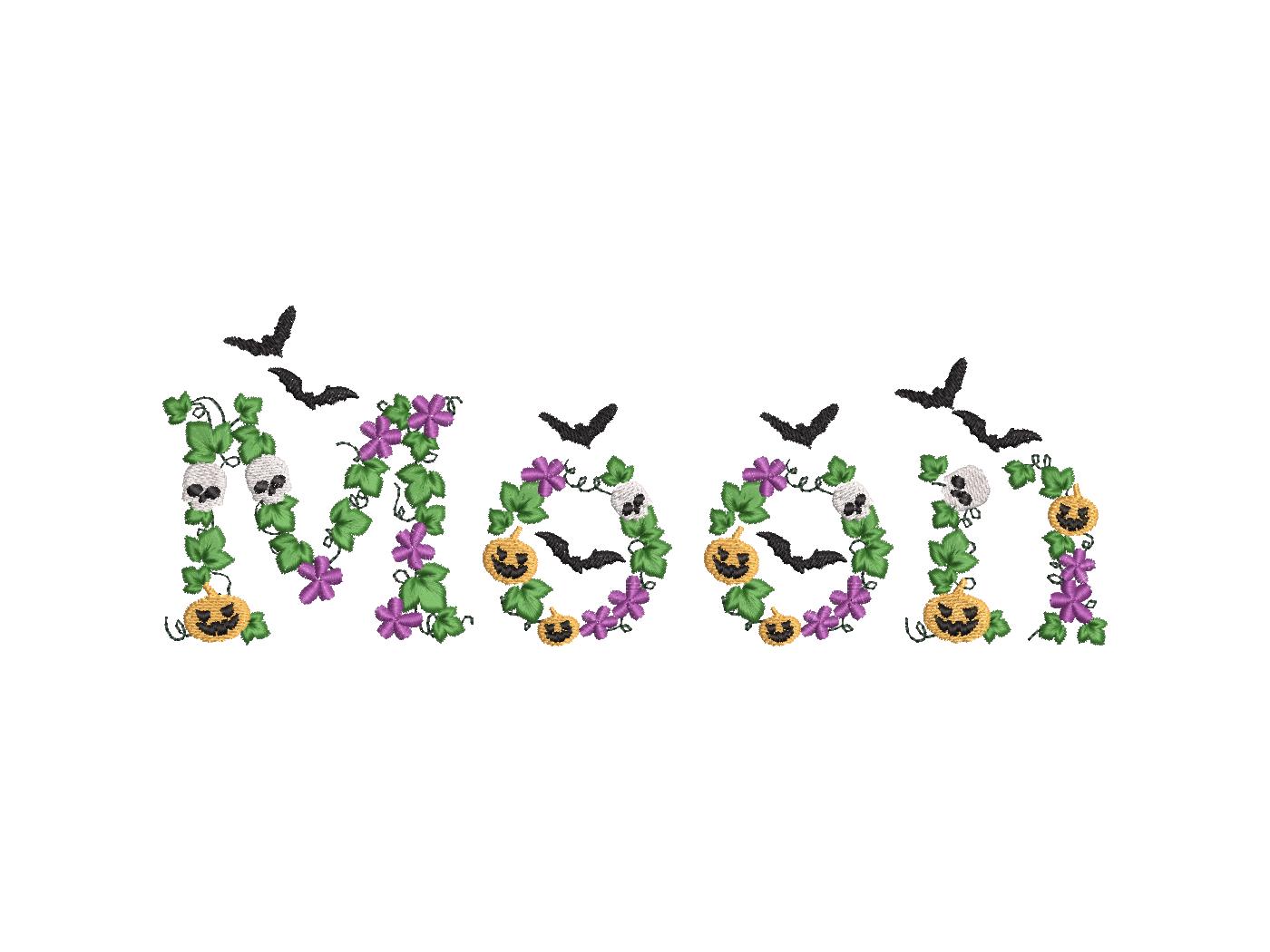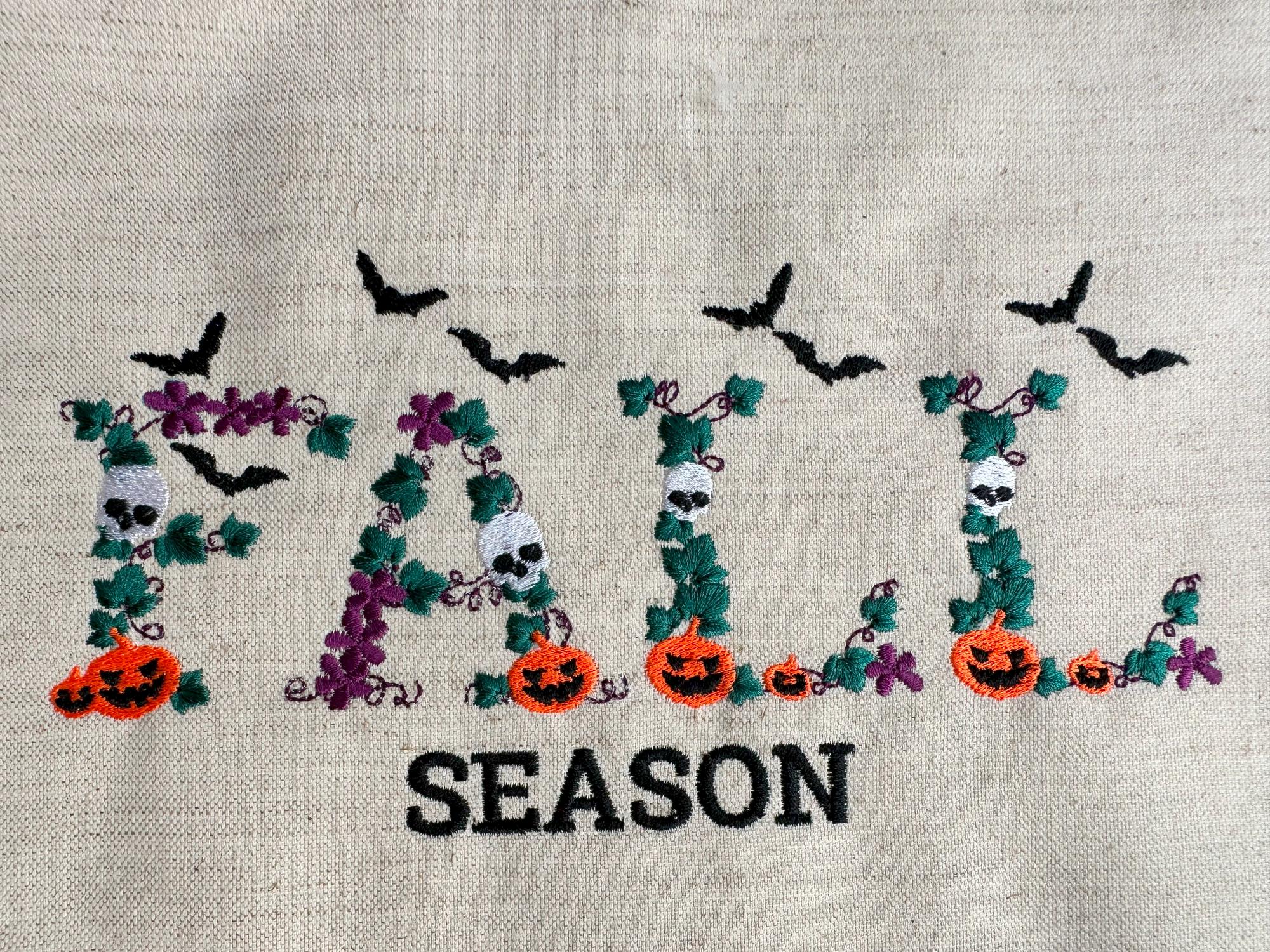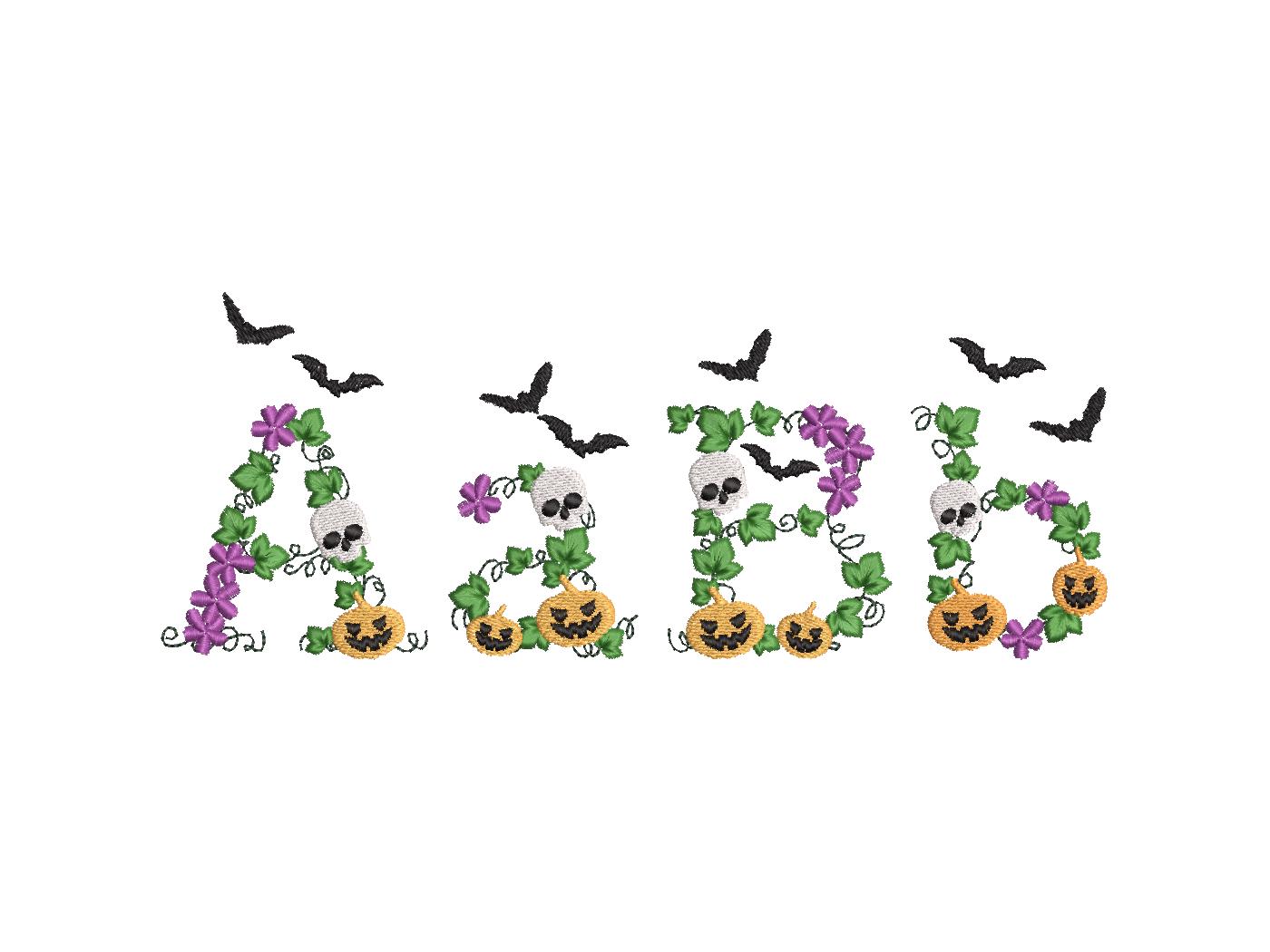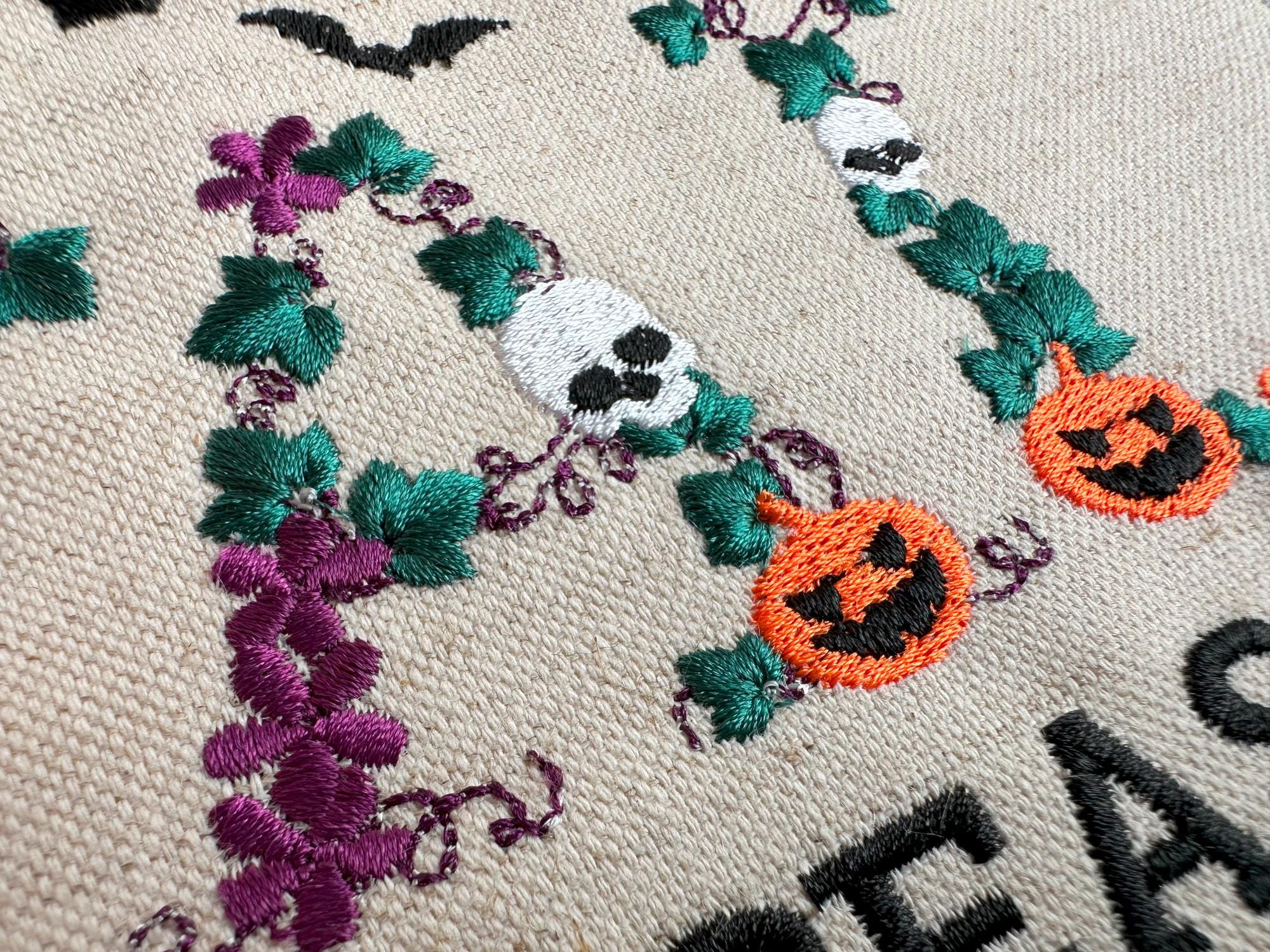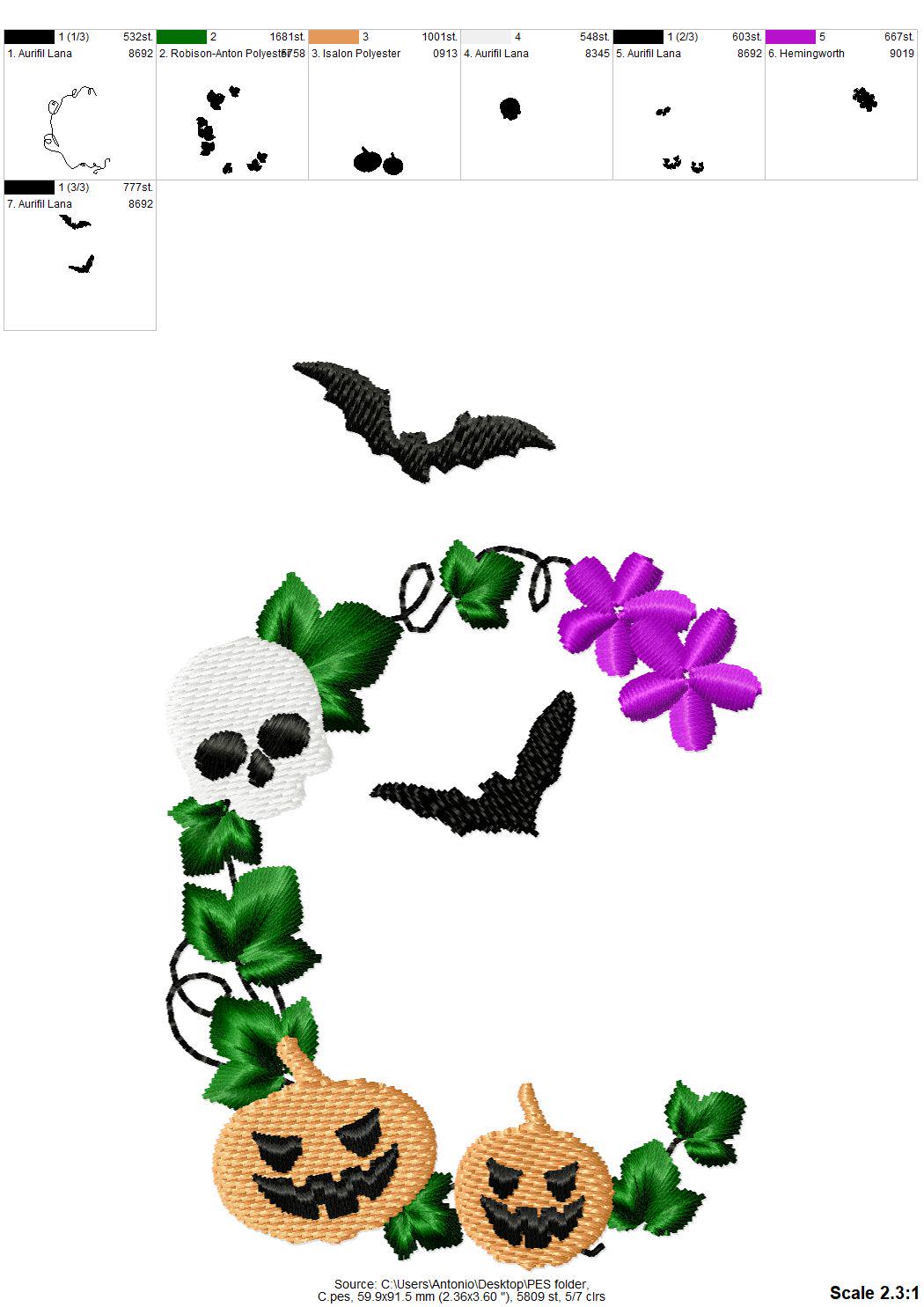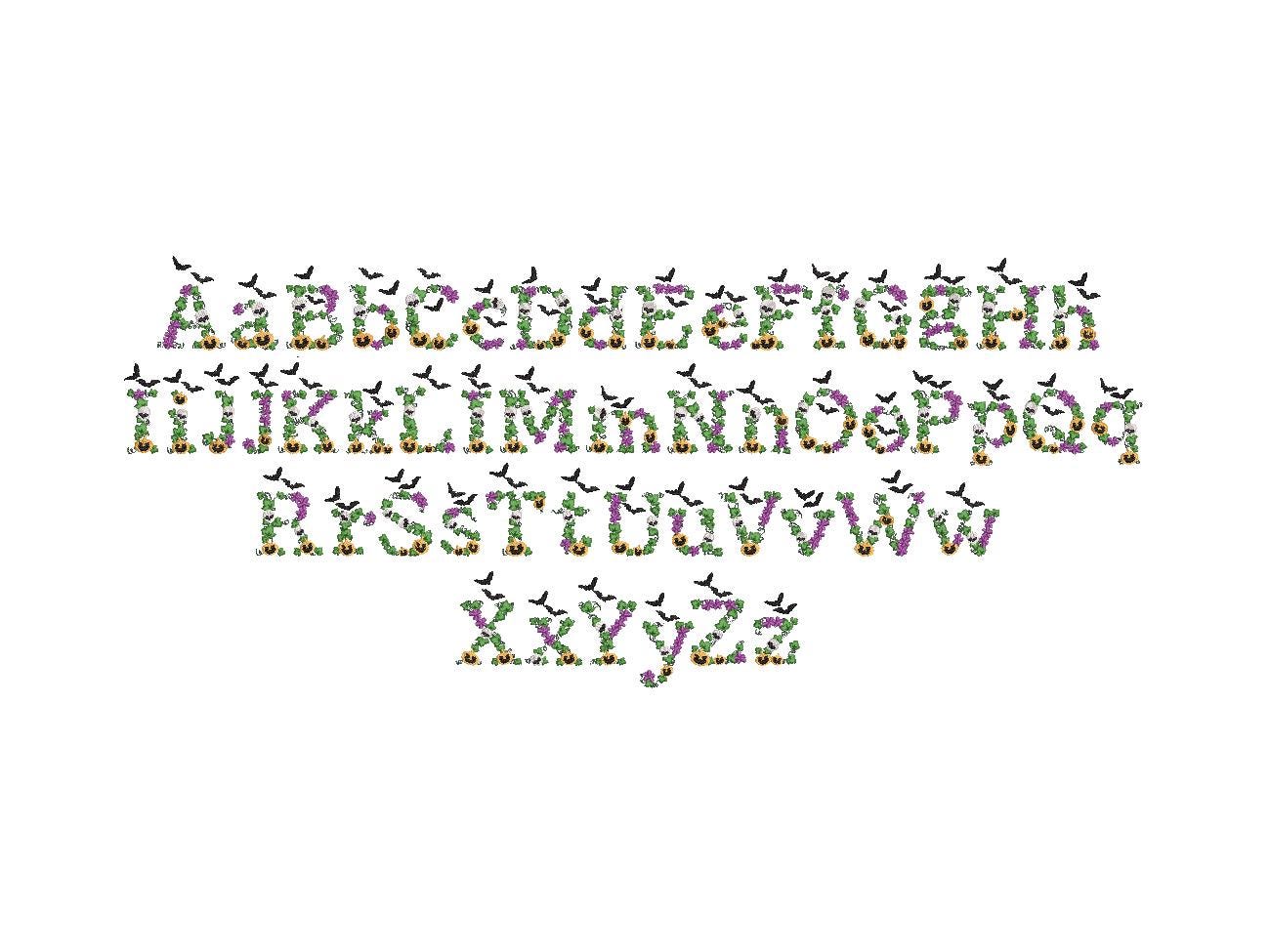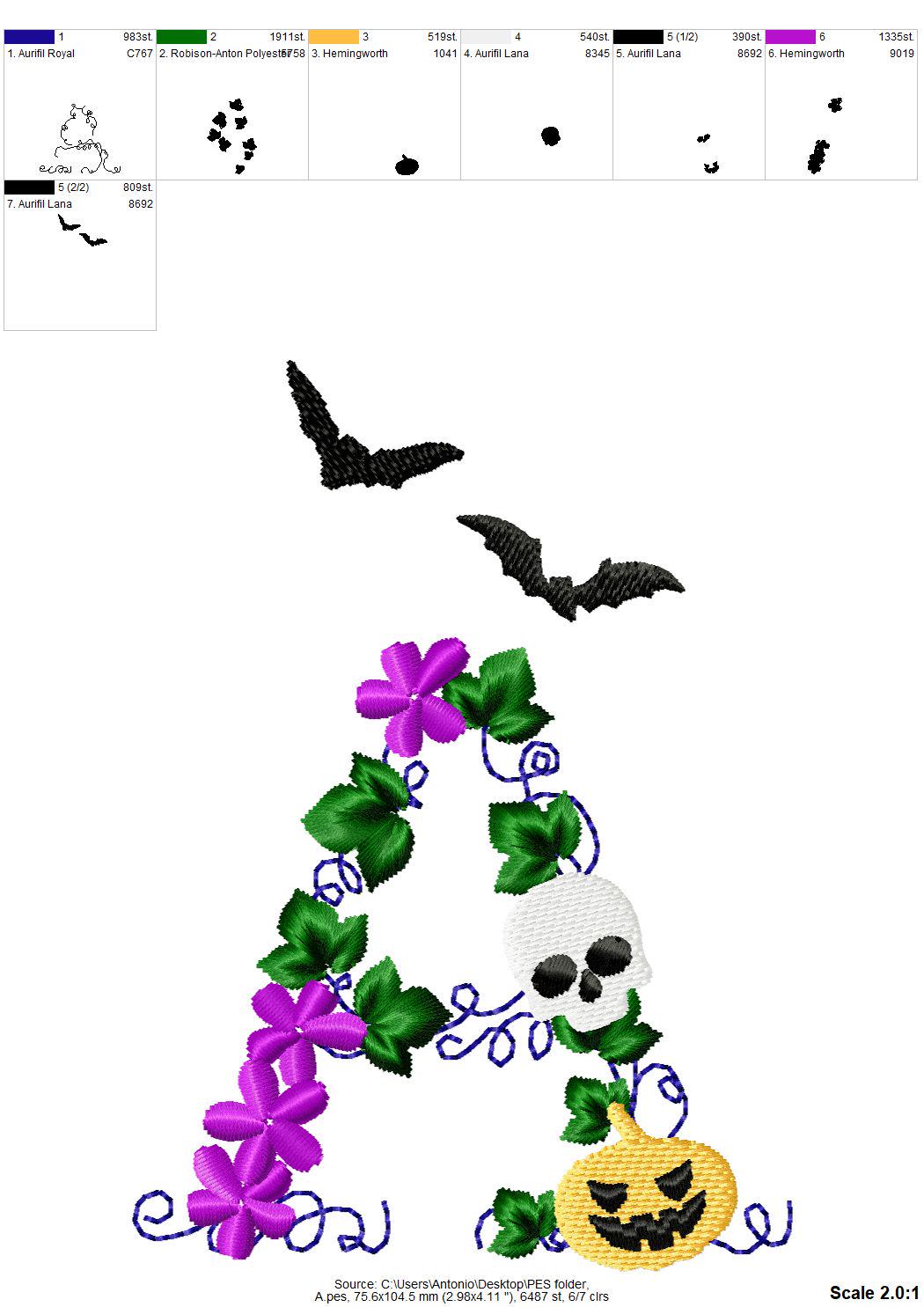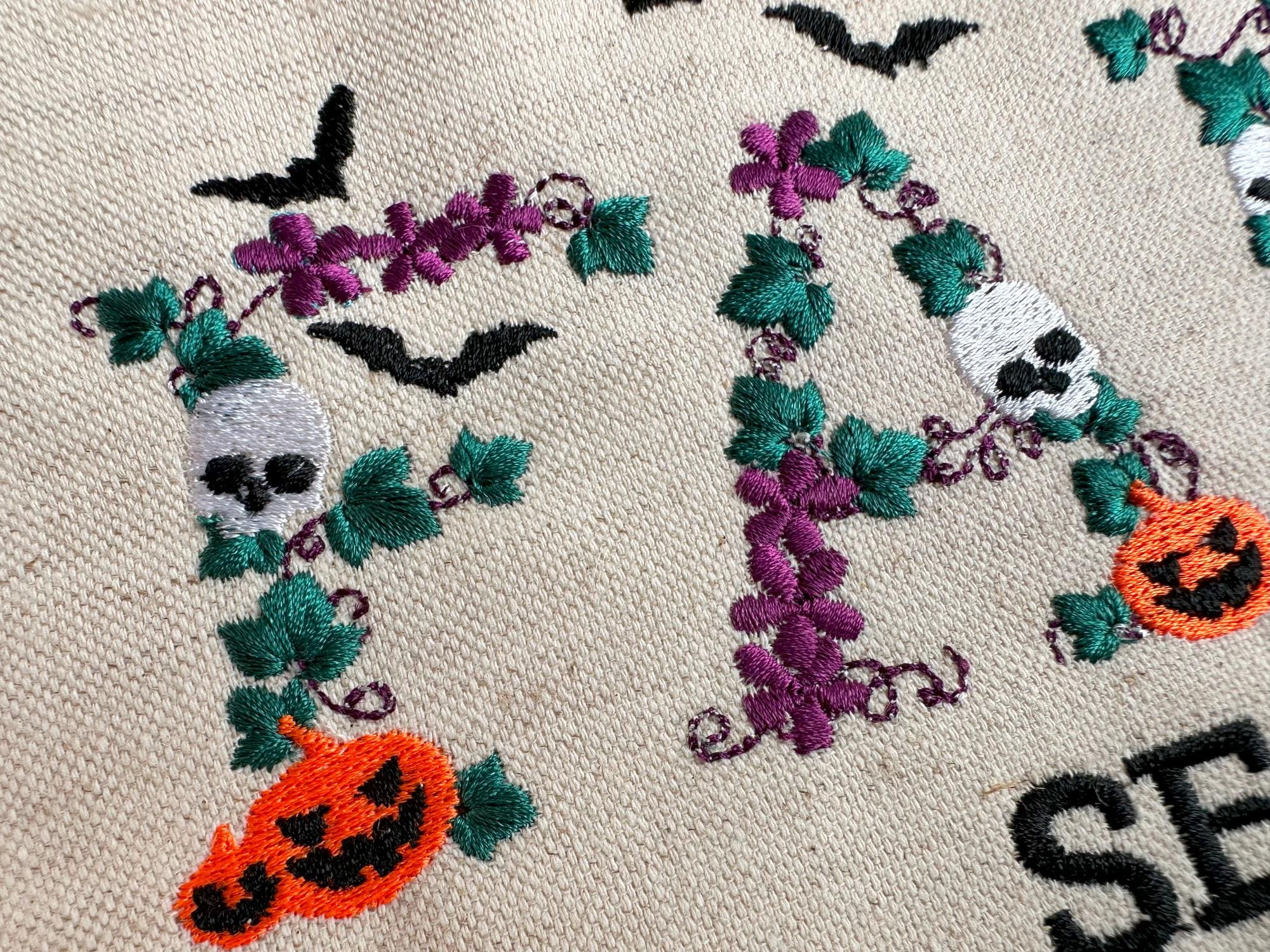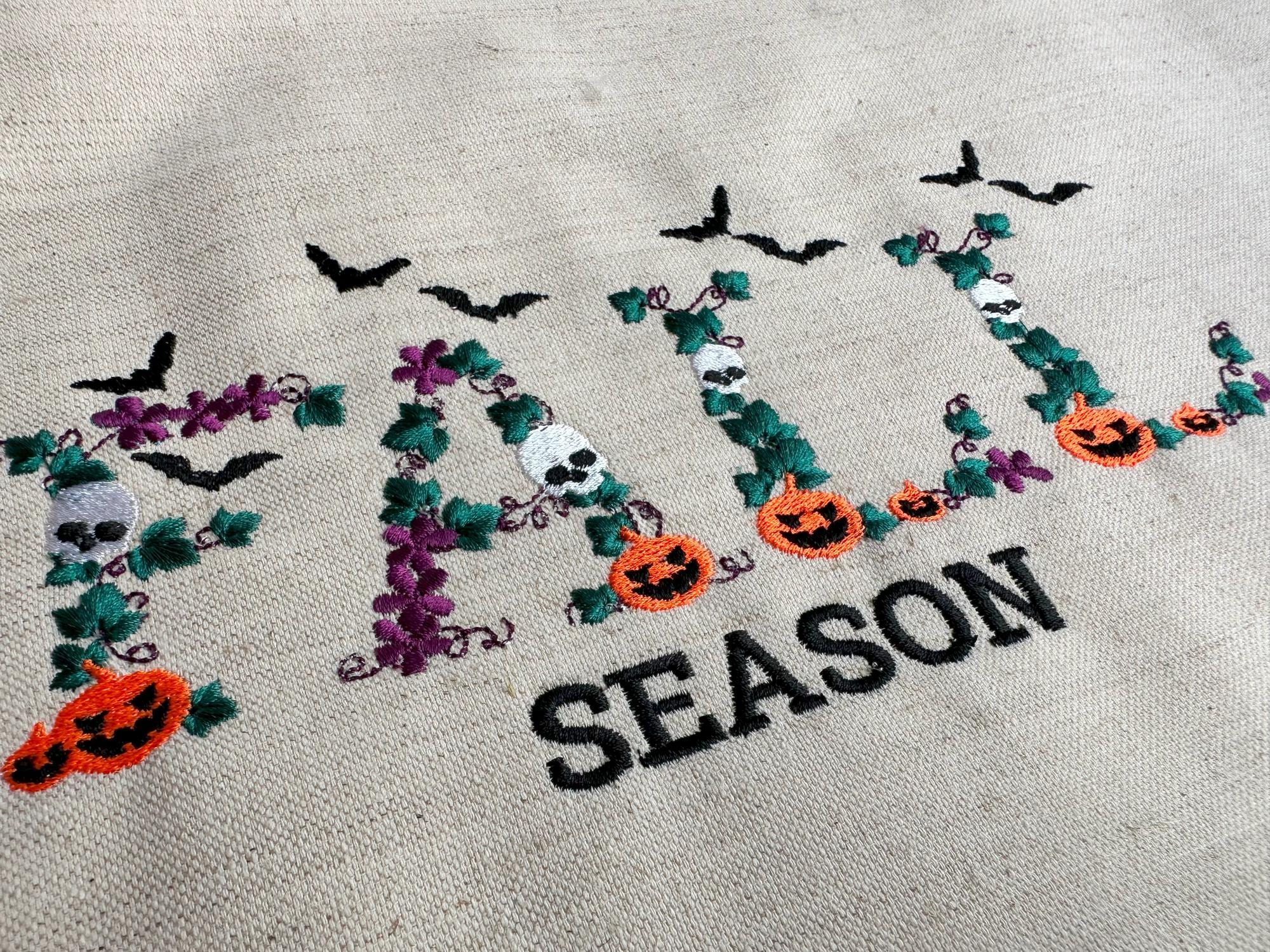
Fall season Halloween Font bat skull jack-o-lantern spooky scary floral alphabet letters machine embroidery designs Boo font 3.4, 4, 5, 6in
Whole alphabet uppercase and lowercase letters Aa-Zz.